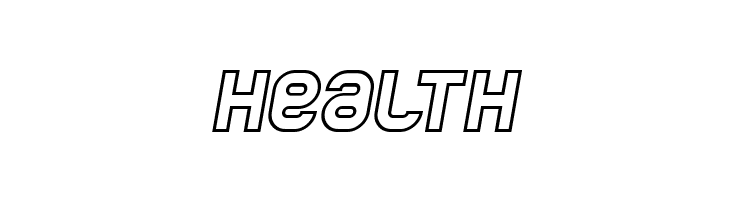
Mutter Krause Buch Bold Font
A bold, italicized serif font with moderate contrast and classic elegance.
Ehmcke Federfraktur Font
An ornate Blackletter font with intricate, gothic-inspired letterforms.
AveriaSans-BoldItalic Font
A bold, italic font with rounded edges and a modern, approachable style.
We Are Allstar Regular Font
Font by Gilar Studio
A bold, playful font with rounded, exaggerated shapes and a whimsical style.
Gar-A-MondTall Light Font
Murat Yegul - www.formatltd.com
A classic serif font with tall, slender characters and a light weight, exuding elegance.
JUstice Mono Bold Font
Font by www.smeltery.net
A bold, monospaced font with a structured and mechanical appearance.
Term-RegAaa Font
A futuristic, geometric font with rounded edges and consistent stroke width.
Jumbo Outline Italic Font
Font by dustBUST - Andreas Nylin
A bold, outlined italic font with a modern and dynamic style.
Tecnico Grueso Inclinado Font
Font by
gomez447
A bold, italicized, and modern sans-serif font with rounded characters.
TRACEROUTE Italic Font
Font by Apostrophic Lab
A modern, angular italic font with a futuristic and dynamic style.
SynthetiqueOT Font
Font by Blue Vinyl - Jess Latham - www.bvfonts.com
A modern, dotted font with a digital and futuristic style.
Good Playmate DEMO Font
Font by Nuryanto Dwi
A playful, whimsical font with a hand-drawn feel and dynamic character shapes.
Paint the Sky Regular Font
A bold, expressive brushstroke font with dynamic and textured characters.
RundgotischRauh Font
A bold Gothic font with sharp, angular lines and a medieval flair.
Panefresco 250wt Regular Font
A modern, geometric sans-serif font with a clean and professional look.
xxjjoosengx33xx 2 Italic Font
A bold, italic, and angular font with a modern and dynamic style.
Brasspounder Font
A bold, dynamic serif font with a modern yet classic appeal.
AveriaSans-Italic Font
A smooth, flowing italic font with rounded characters and consistent stroke widths.
Thin Design Font
A tall, slender, and modern font with a minimalist aesthetic.
!Square Engine 250 Reflex Bold Font